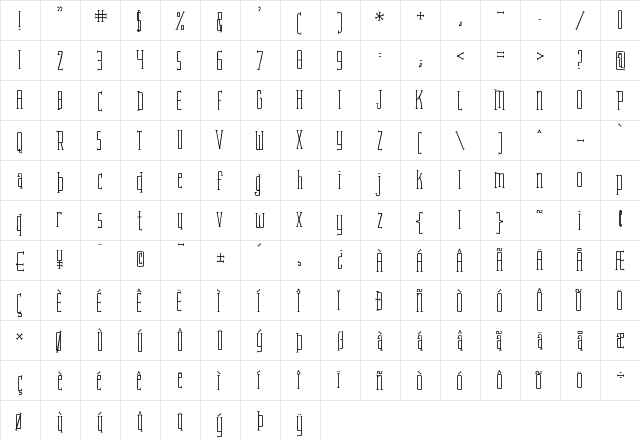
KG Attack of the Robots Regular
Regular · Kimberly Geswein Kimberly Geswein ·
Design Context for KG Attack of the Robots Typeface
KG Attack of the Robots is a composed and adaptable typeface that performs quietly and consistently across a wide range of design contexts.